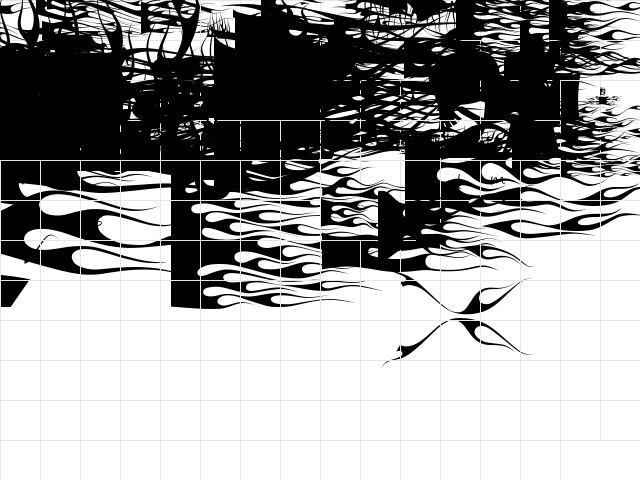
Flames iii Regular
Design Context for Flames iii Typeface
Flames iii is a composed and adaptable typeface that performs quietly and consistently across a wide range of design contexts.